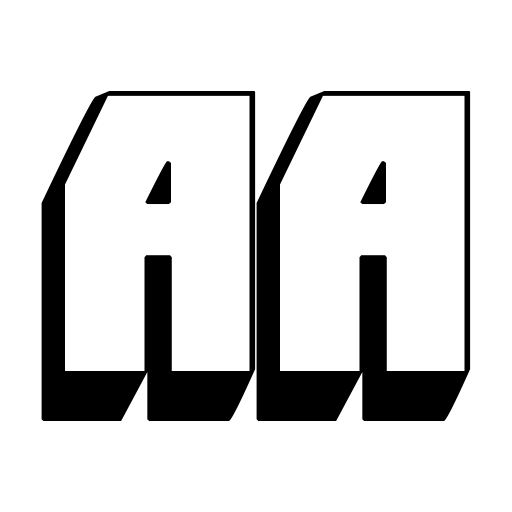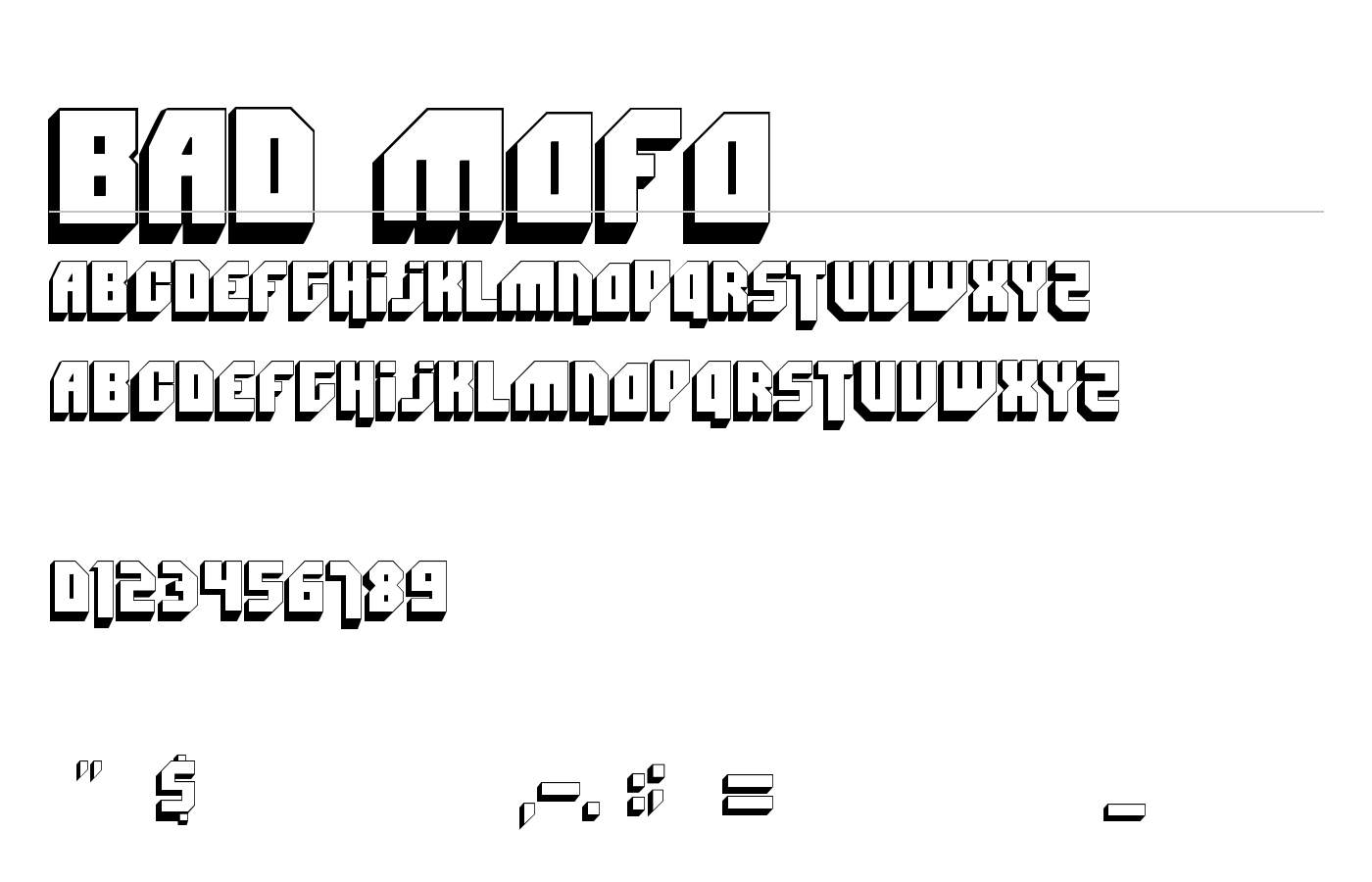
Bad Mofo is a bold, blocky display font with a strong three-dimensional effect that creates a dynamic sense of depth. Its geometric, angular letterforms have a playful yet tough attitude, making it perfect for eye-catching headlines, logos, and designs needing a modern, impactful style. This font works well in urban, sports, or youth-focused branding where boldness and energy are key.
Bad Mofo Font